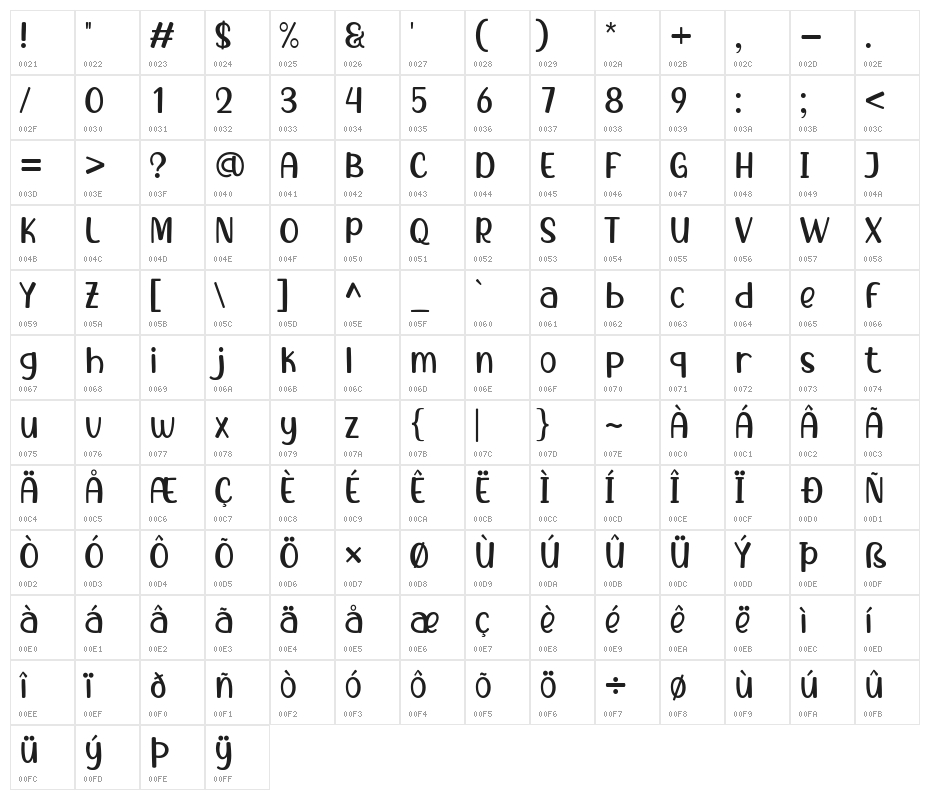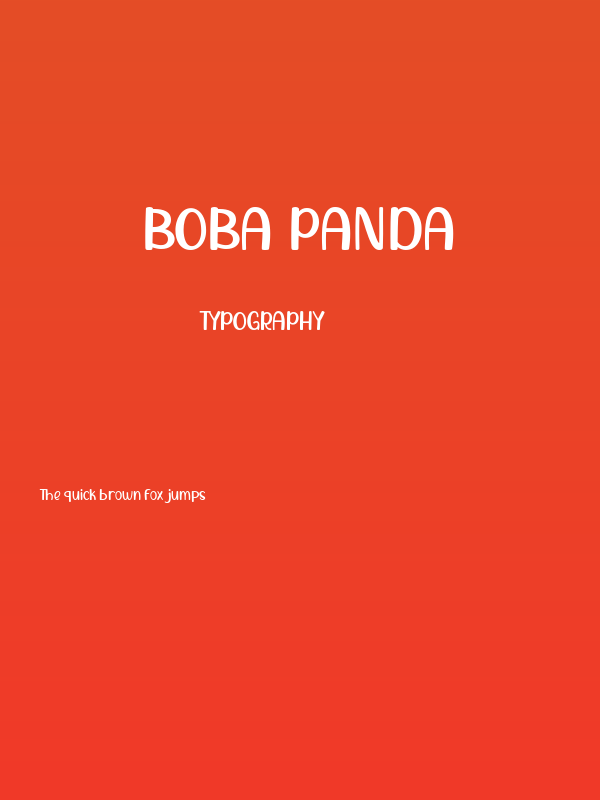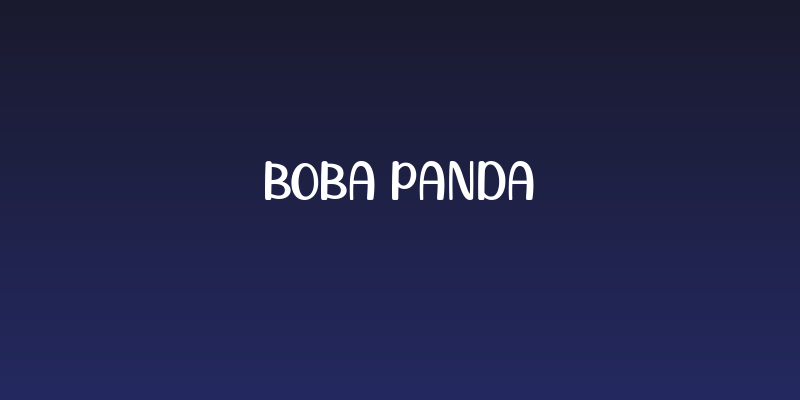
Boba Panda Font
Boba Panda Description
This playful and rounded font features a whimsical style with smooth curves and a friendly appearance. The letters are bold and slightly condensed, giving them a compact and cohesive look. The uppercase and lowercase characters maintain a consistent style, with rounded edges and a uniform stroke width. The numerals are clear and easy to read, complementing the overall design. Special characters are creatively integrated, adding to the font's charm. This font exudes a sense of fun and approachability, making it ideal for projects that require a lighthearted and engaging aesthetic.